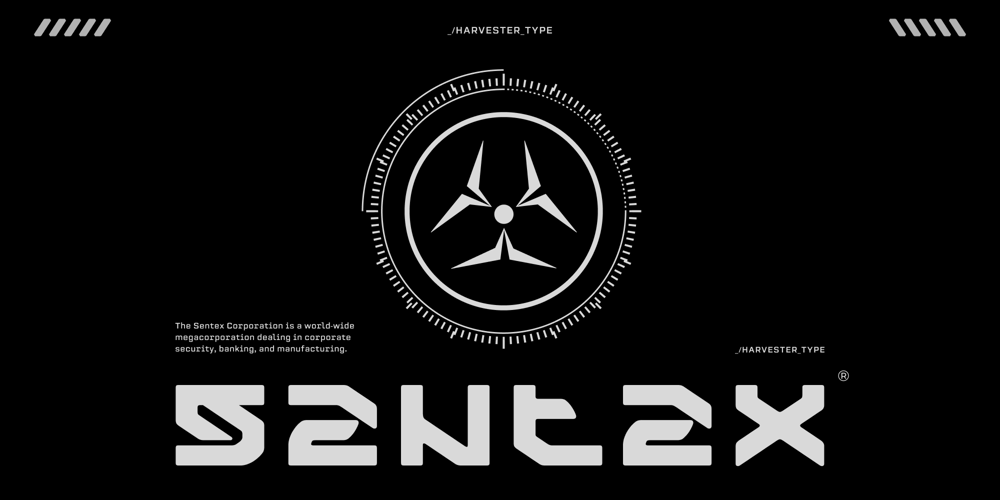
Sentex Font Family was designed by Eugene Bunin and published by Harvester Type. Sentex contains 1 styles and family package options. Sentex is a font from the Cyberpunk universe, inspired by the logo and created by order of the corporation itself. The font conveys the spirit of cyberpunk and its atmosphere.The font has many alternative characters and contains a basic set of letters, punctuation and numbers.The font is perfect for prints on clothes. For logos, posters and titles. A lot of alternative symbols and language support gives great freedom to creativity!